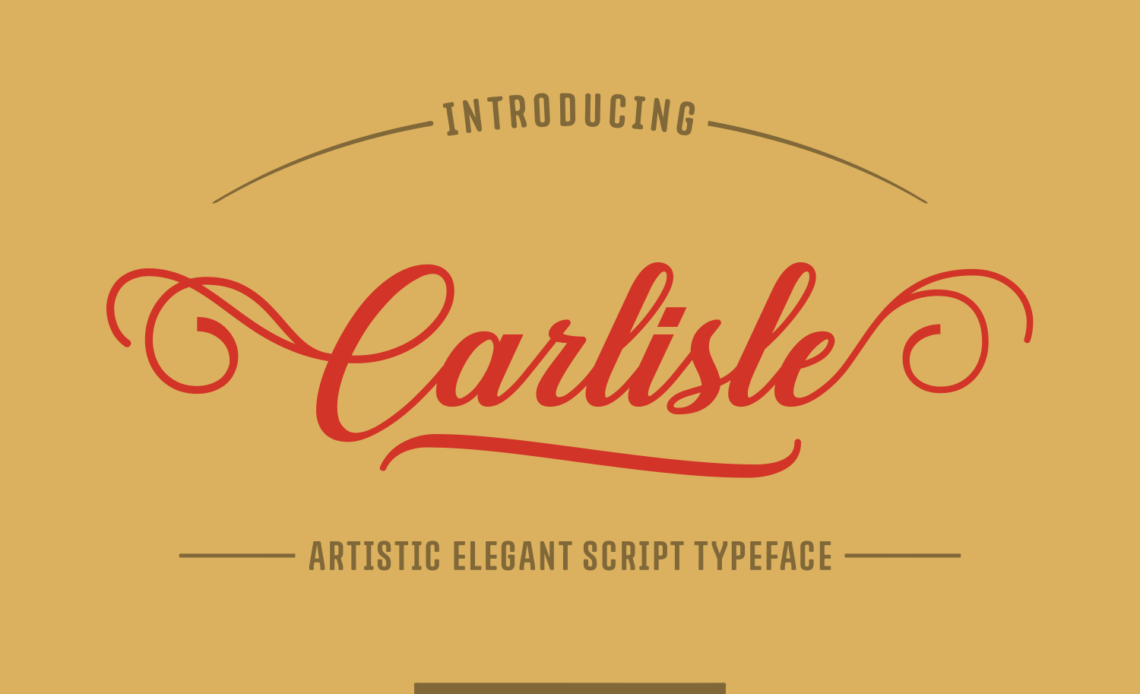
Journey into the Realm of Enchantment with Carlisle Font
In a world where words dance and stories come alive, there exists a font that captures the essence of elegance and grace - Carlisle Font. This exquisite script font, crafted with meticulous attention to detail, is a testament to the power of typography. As you immerse yourself in the world of Carlisle, you'll discover a symphony of flowing strokes, delicate curves, and intricate details that weave a tapestry of visual delight.
Step into a Realm of Visual Symphony
Carlisle Font is not merely a collection of letters; it's an orchestra of glyphs, each note contributing to a harmonious composition. Its sweeping ascenders and graceful descenders dance across the page, creating a visual rhythm that captivates the eye. The carefully crafted ligatures intertwine seamlessly, adding a touch of sophistication and elegance to your designs. With Carlisle, you have the power to transform ordinary text into captivating compositions that resonate with your audience.
Unleash Your Creativity with Endless Possibilities
Carlisle Font is a versatile chameleon, effortlessly adapting to a myriad of design styles. Its inherent charm shines through in wedding invitations, adding a touch of romance and timeless beauty. It graces social media posts with an air of elegance, making your messages stand out from the digital crowd. Logos and branding materials adorned with Carlisle exude a sense of professionalism and creativity, leaving a lasting impression on your clients. Unleash your imagination and explore the boundless possibilities that await you with Carlisle Font.
Carlisle Font: A Timeless Treasure
In a world where trends come and go, Carlisle Font stands as a testament to timeless beauty. Its classic script style transcends fads and remains a beloved choice for designers and creatives seeking a touch of sophistication. Its versatility allows it to seamlessly blend with various design aesthetics, ensuring that your creations remain relevant and captivating for years to come.